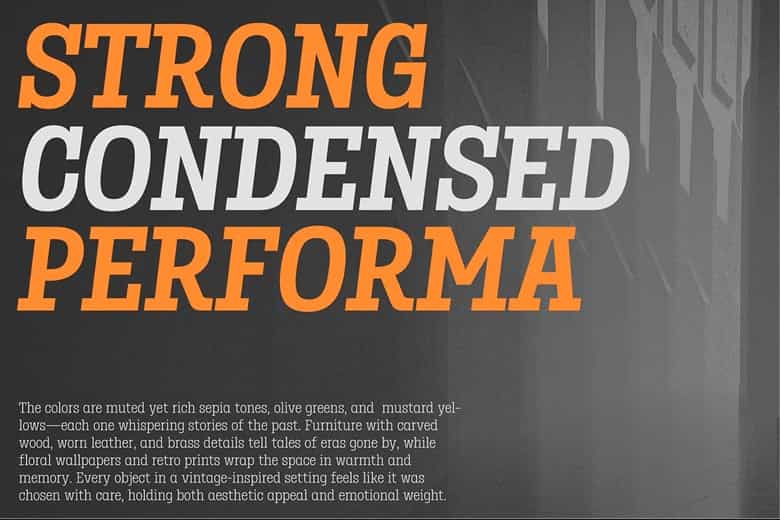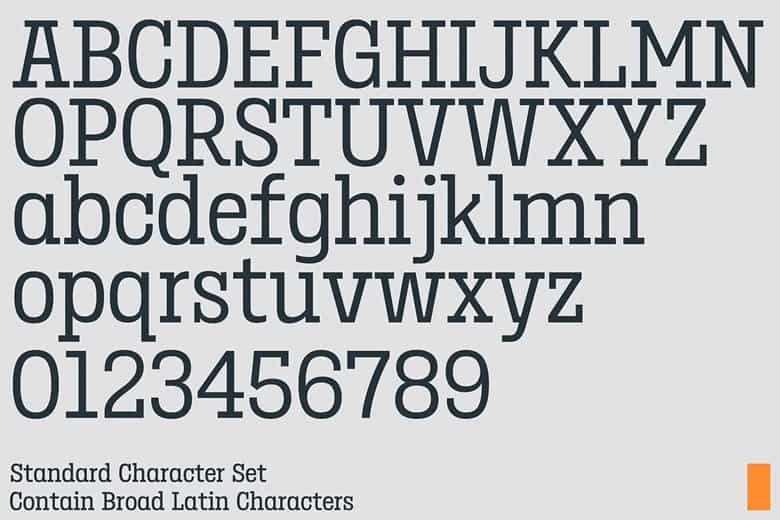
Birdwood is a modern slab serif font family which exudes bold and in- charge personality to any design. Having a certain powerful, strong personality, and a rather compact but well outlined body, Birdwood is a confident and functional bird in terms of the design. The family also has 16 variants of popular-weight families between Thin and Black and matching italics providing a versatile weight selection to meet many typographic requirements. Designed initially keeping the aspect of display in mind, it is exactly that prescription to make a splashing headline, brand and logo.